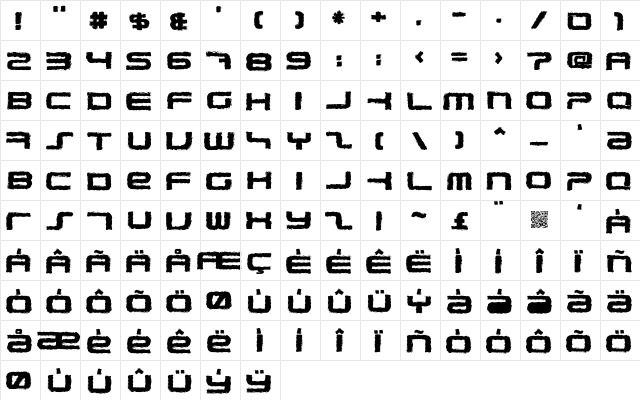
PhatBoy Slim Rough
Design Context for PhatBoy Slim Typeface
PhatBoy Slim trades polish for personality, using distressed and eroded forms to bring grit and attitude to creative work.
Suited to punk-influenced zines, underground music branding, streetwear, and raw, anti-corporate design.
Pro Tip: Pair PhatBoy Slim with intentionally raw or lo-fi design elements. Fighting against it with overly polished surroundings will undermine its personality.